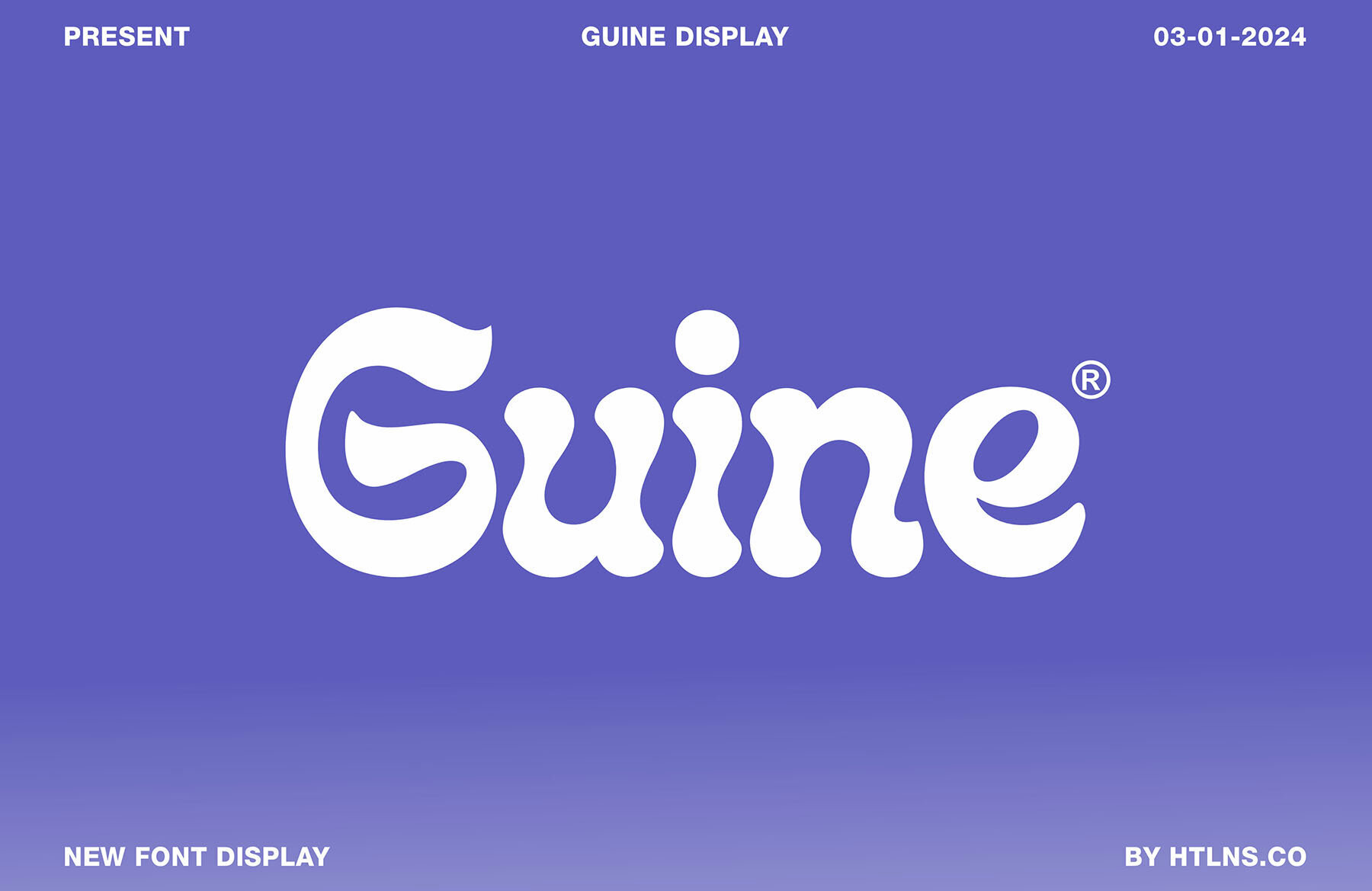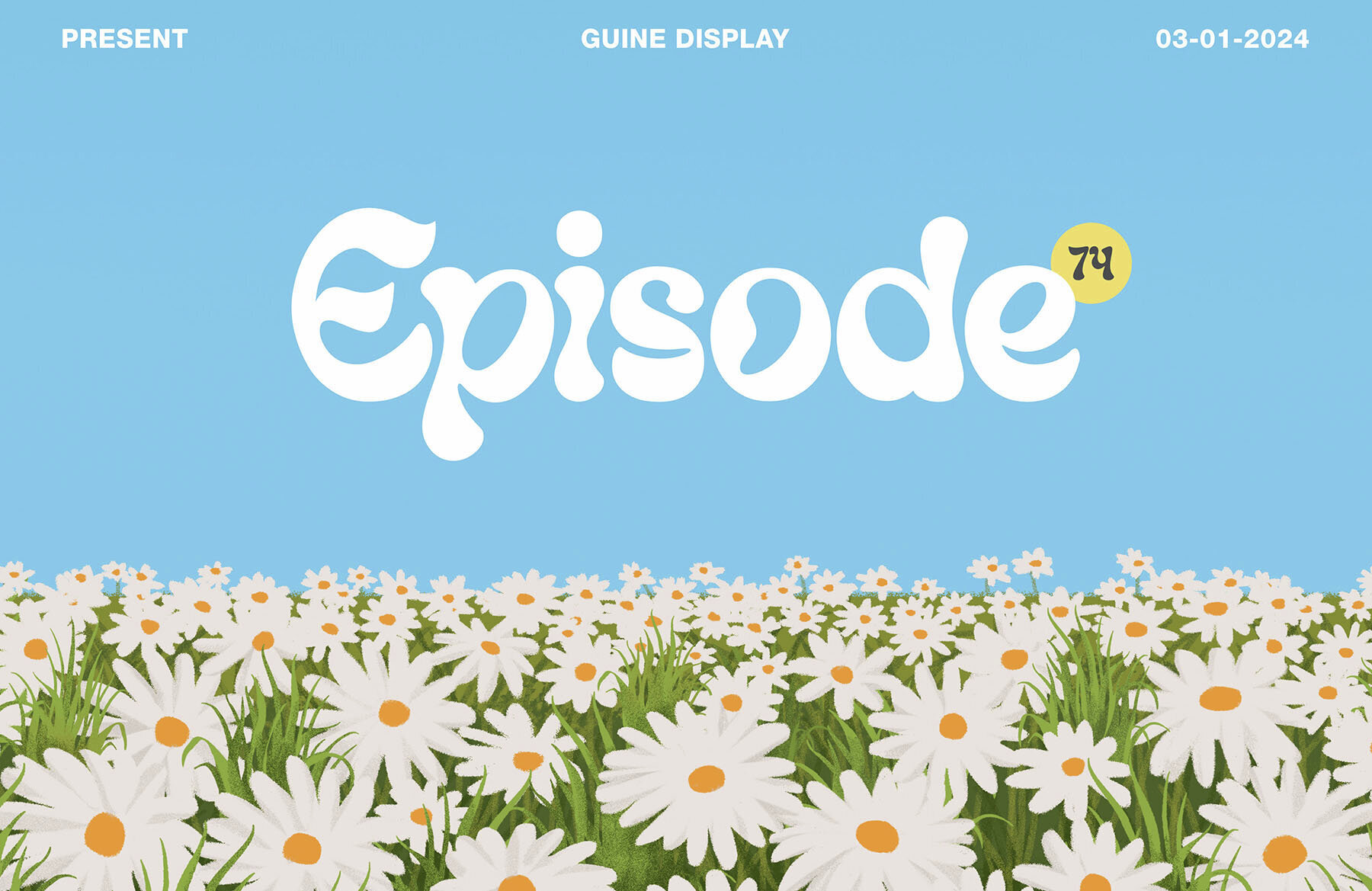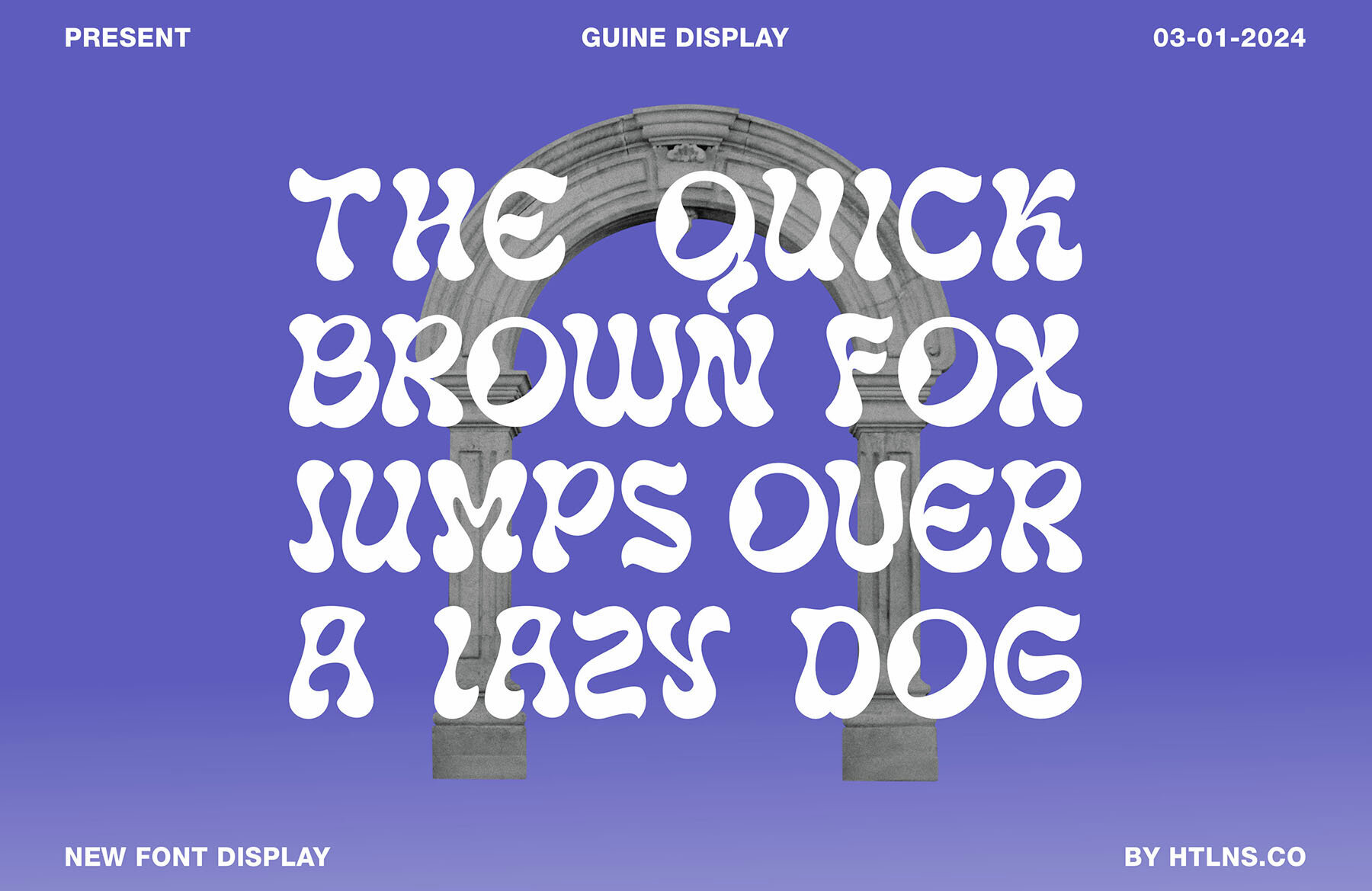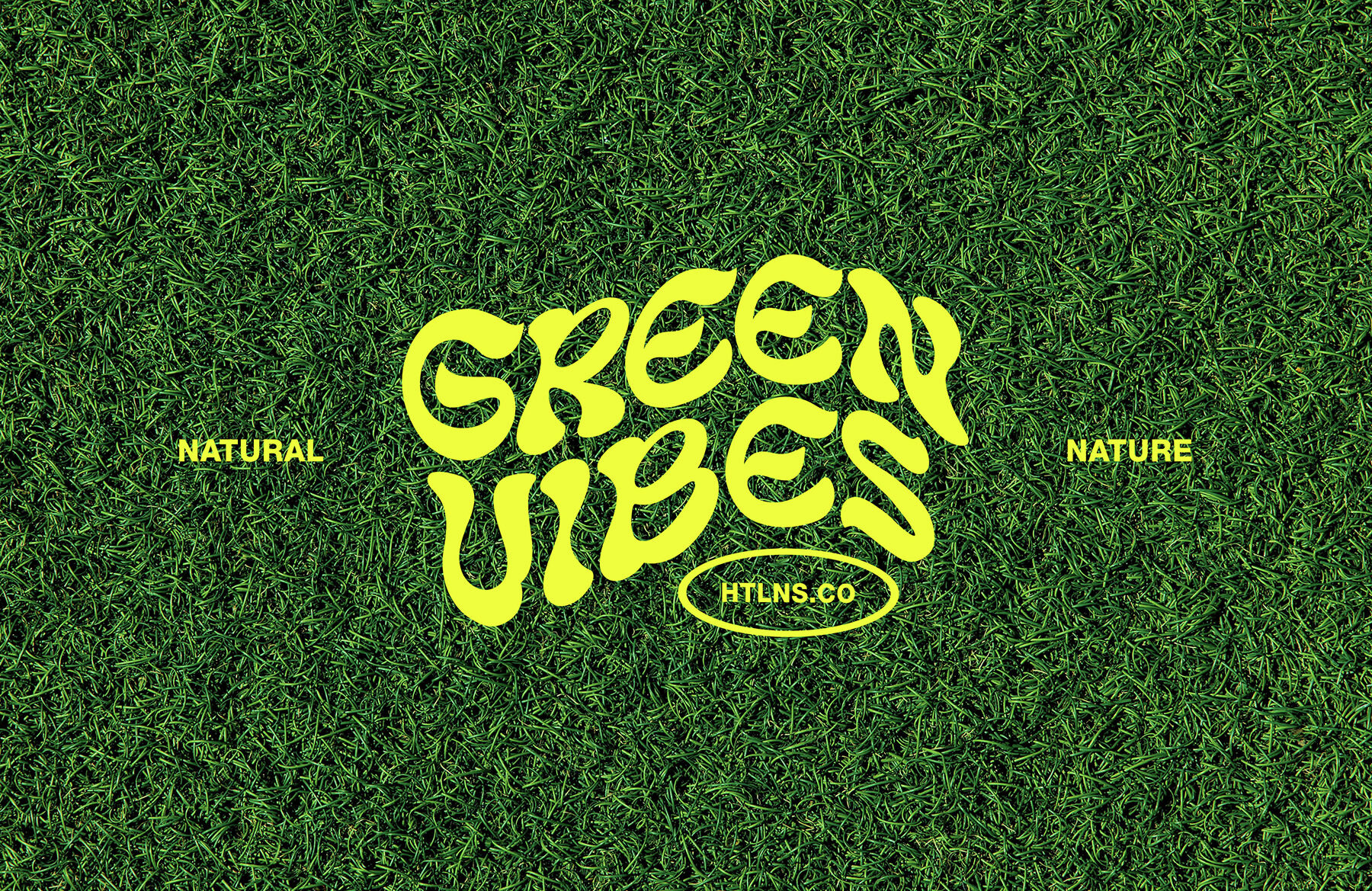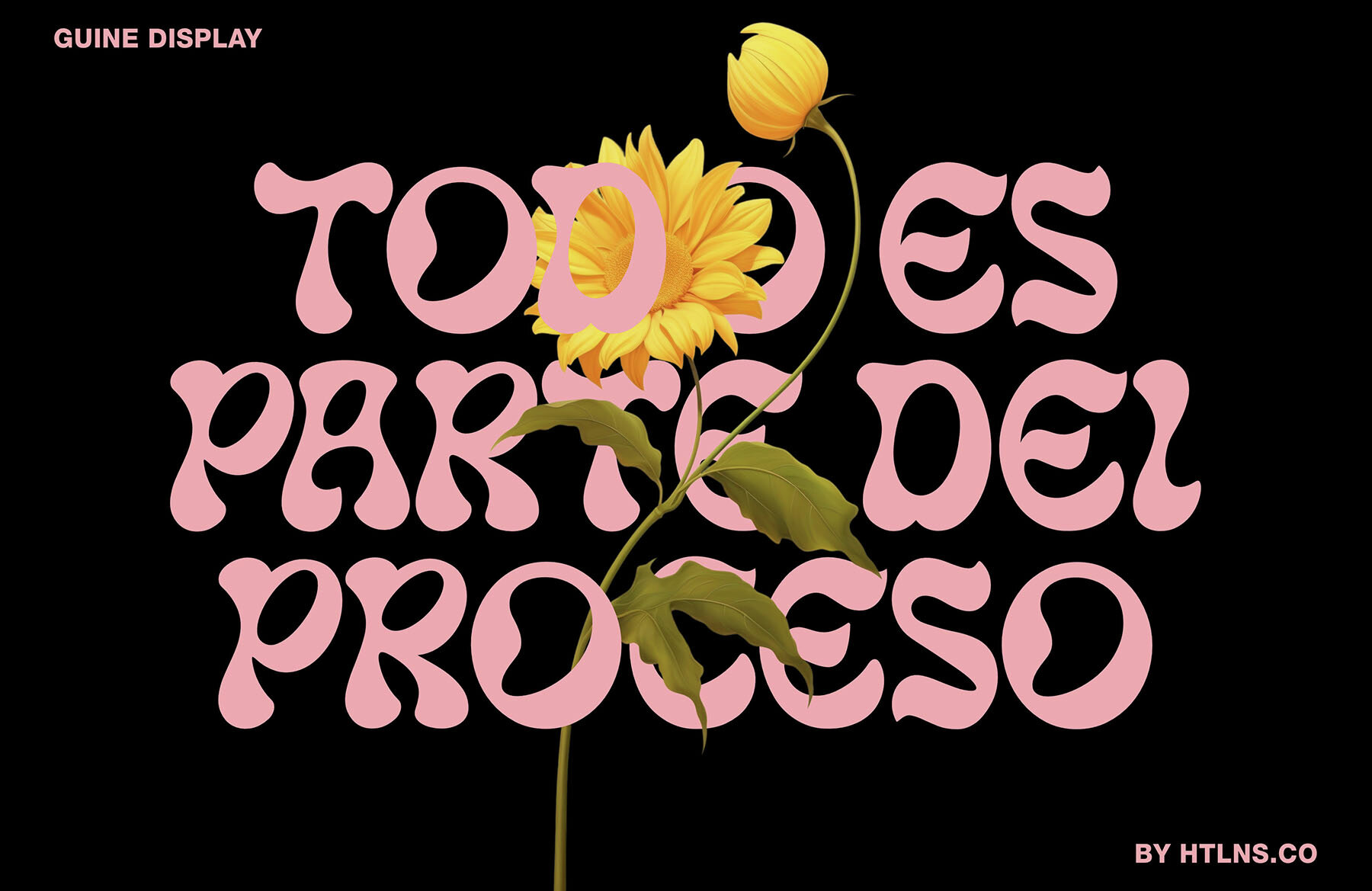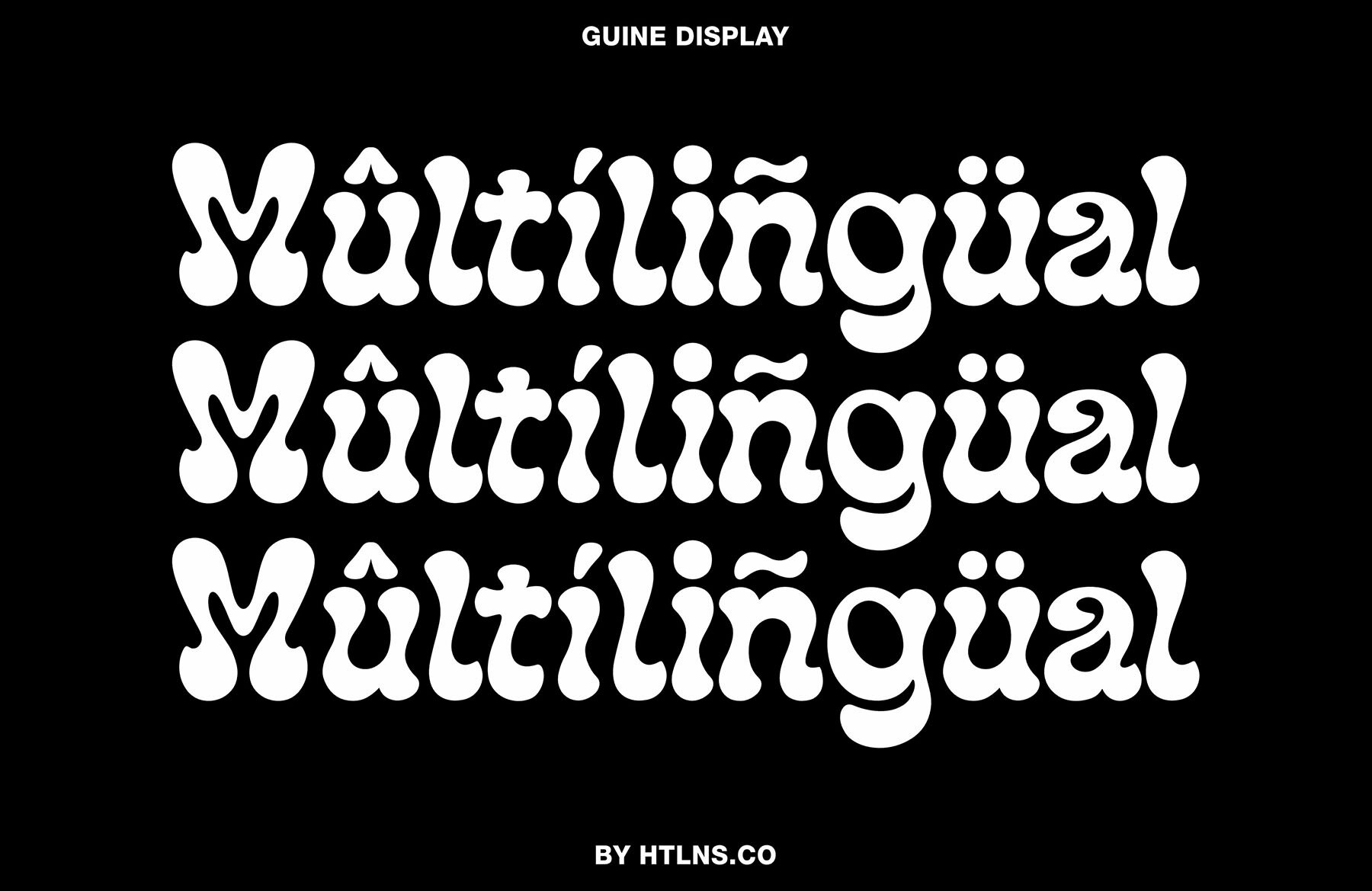
Guine Display Font
Guine Display Regular
Guine Display, by Hotline Supply, offers a unique style that simplifies the design process for both professionals and creatives alike. While this font embodies elements of retro design, it maintains a modern edge, making it an excellent choice for a variety of applications. The Guine Display typeface is a perfect fit for many creative projects, thanks to its ease of use and distinctive design characteristics.Guine Display: A Unique Retro-Modern Typeface
Versatile and User-Friendly